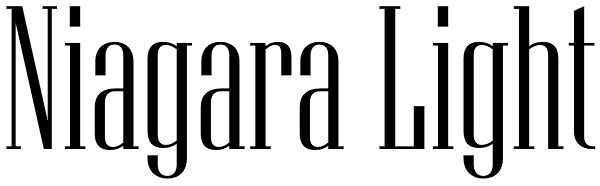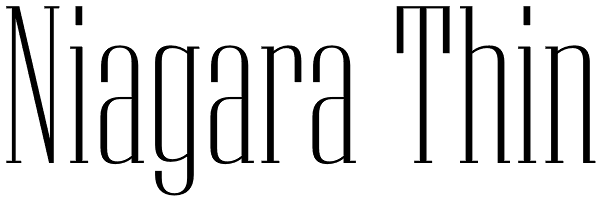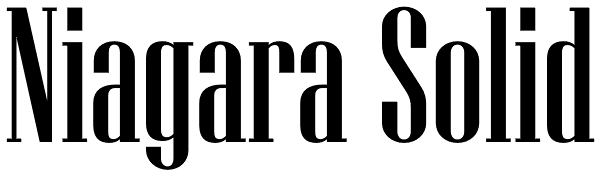
Niagara
While not a revival in the strictest sense of the word, Niagara recalls the crisp, elegant geometry found in some of the best American styles from the nineteen-thirties and -forties. The four condensed weights were designed by Tobias Frere-Jones...